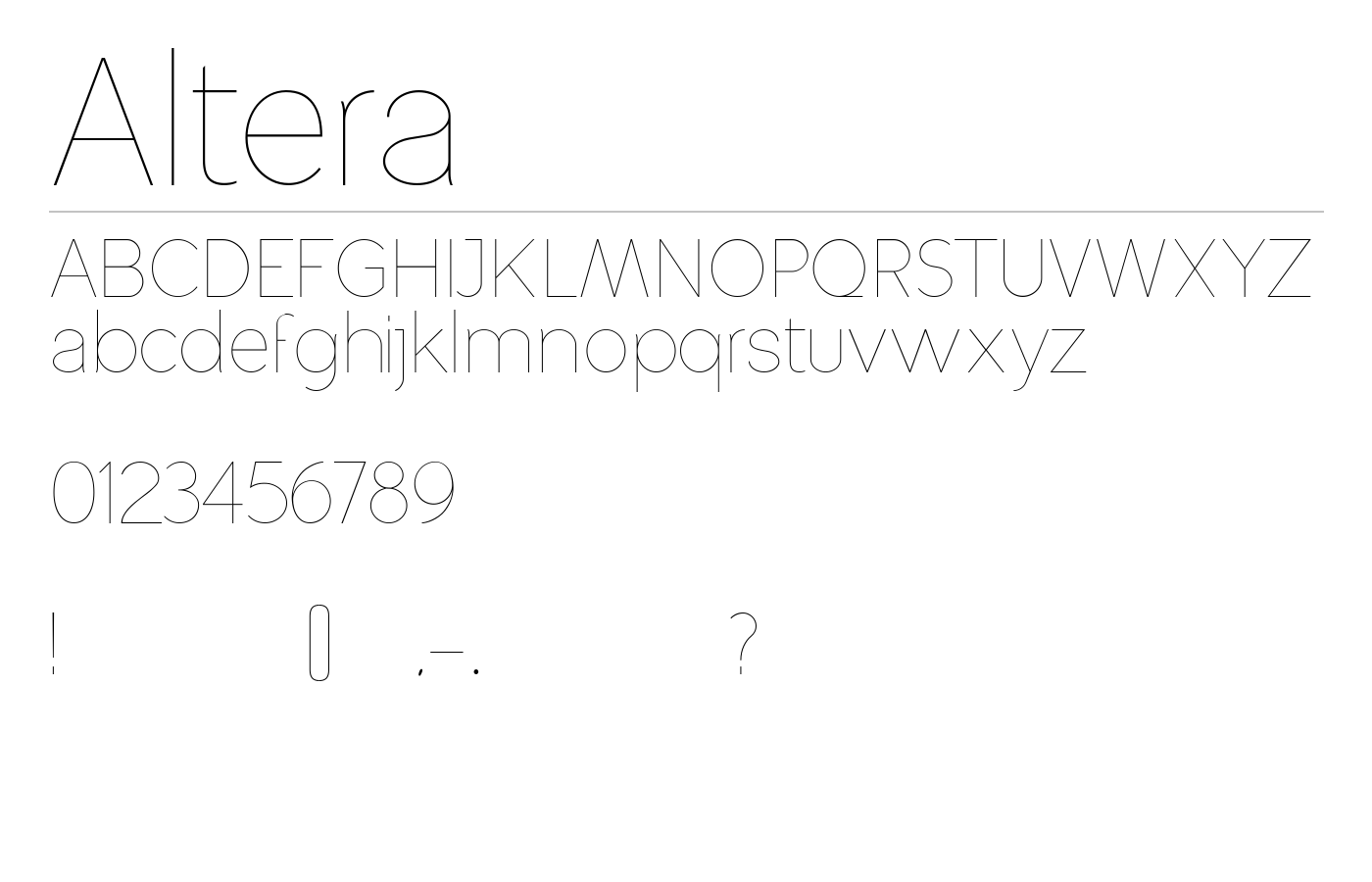
Altera is a sleek, ultra-light sans serif font with a modern, geometric style characterized by its delicate, thin strokes and open, airy letterforms. Its narrow width and minimalist design give it an elegant, contemporary feel, making it ideal for clean, sophisticated branding, editorial headlines, and stylish web design where clarity and subtlety are key. This font works best in large sizes where its fine lines and unique letter shapes can shine without losing legibility.
About Altera Font